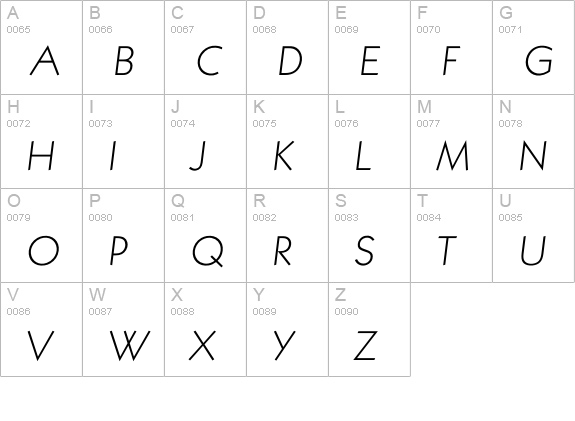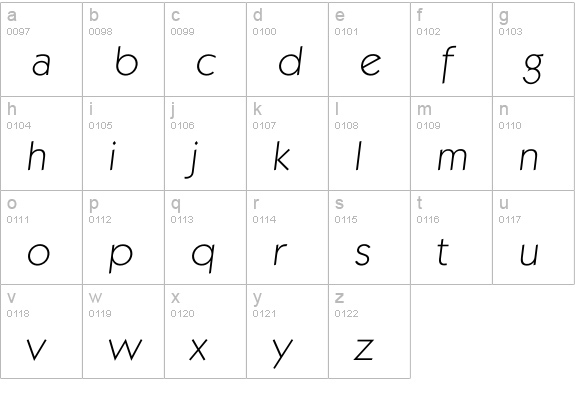
Ikabel Xlight font is a stunning display font that exudes elegance and sophistication. With its sleek and modern design, this font is perfect for any project that requires a touch of class. The Xlight variation of Ikabel offers a delicate and refined look, making it ideal for headlines, logos, invitations, and more. Its thin strokes and precise curves create a visual harmony that is both captivating and pleasing to the eye. One of the best things about Ikabel Xlight font is that it is completely free. You can easily download this font and use it in your personal and commercial projects without any restrictions. It is available for free download at FontsMarket.com, a trusted source for high-quality fonts. Whether you are a designer looking to elevate your work or an individual seeking a stylish font for a special occasion, Ikabel Xlight font is the perfect choice. Its versatility and beauty make it a valuable addition to any font collection. Don't miss out on the opportunity to enhance your designs with this incredible font, freely available at FontsMarket.com.